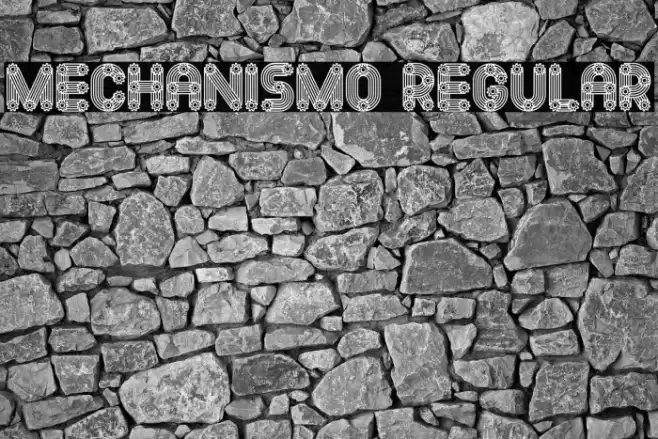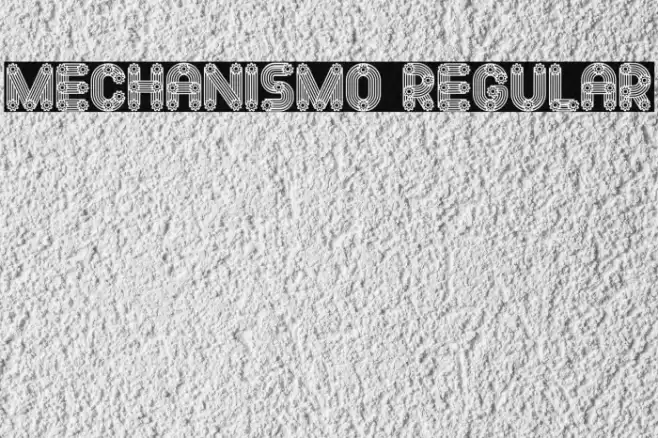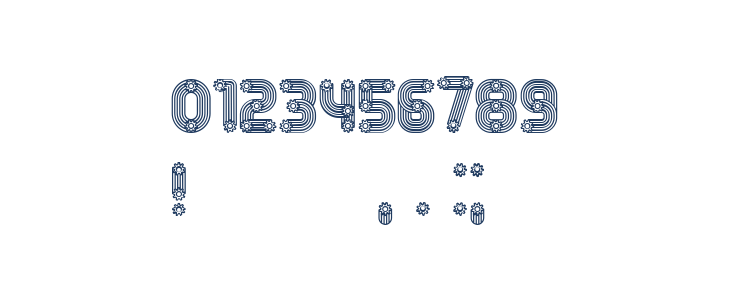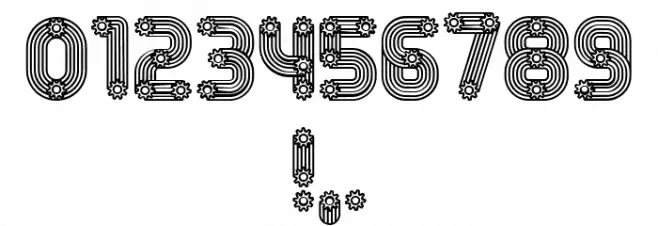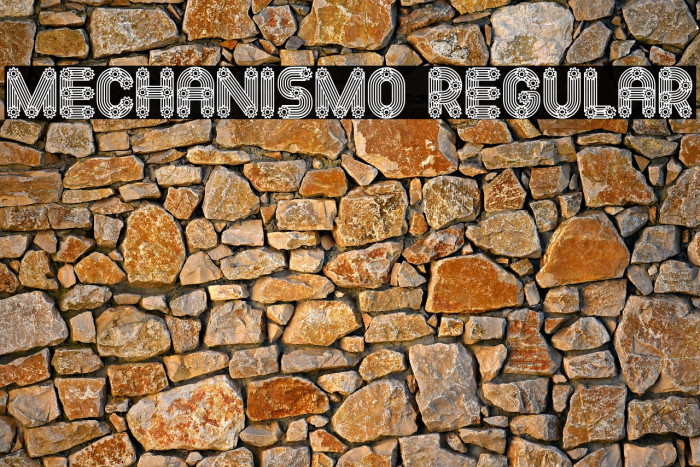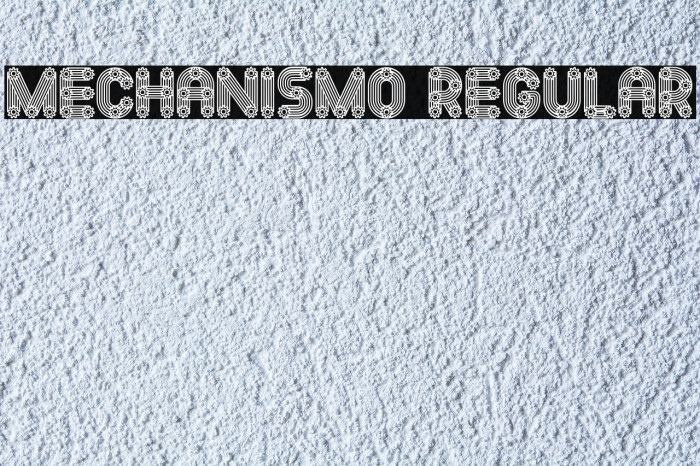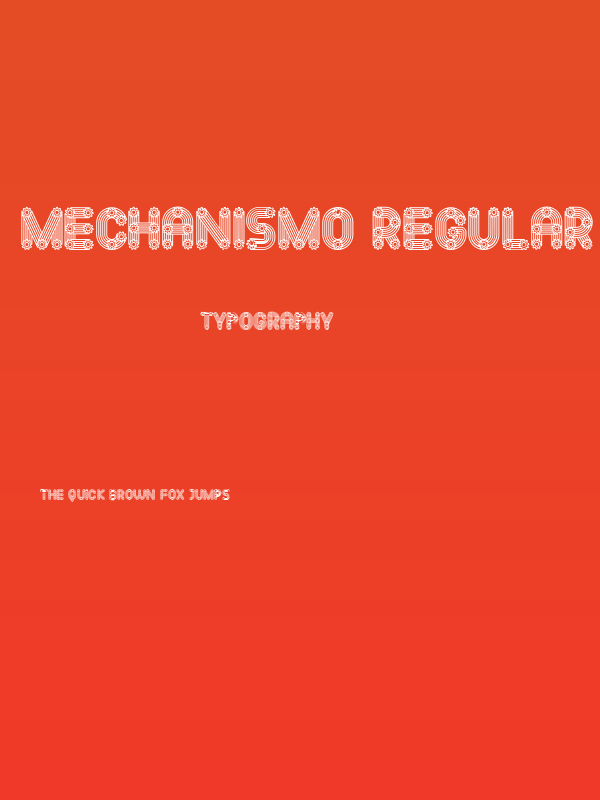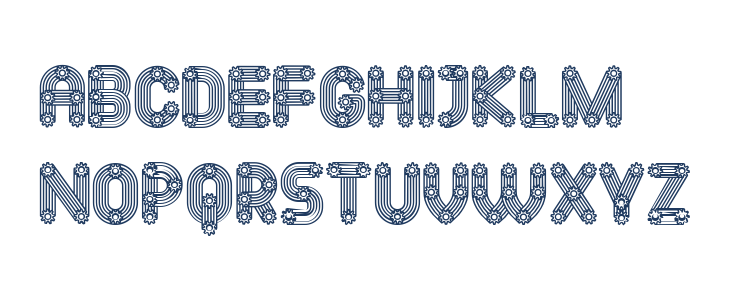
Mechanismo Regular Font
Mechanismo Regular Description
This font features a highly decorative and mechanical-inspired design, characterized by intricate gear and line patterns integrated into each character. The letters are bold and eye-catching, with a unique industrial aesthetic that combines elements of machinery and modern design. The uppercase and lowercase letters, as well as numbers and special characters, all share this cohesive style, making it ideal for projects that require a strong visual impact. The detailed embellishments within the characters create a sense of movement and complexity, perfect for themes related to technology, innovation, or steampunk aesthetics.
A decorative, mechanical-inspired font with intricate gear and line patterns from Decorative fonts.
- Proposed Projects: Ideal for technology-themed posters, steampunk designs, innovative branding, or any project needing a bold, industrial look.
- Overall Style: Modern, Industrial